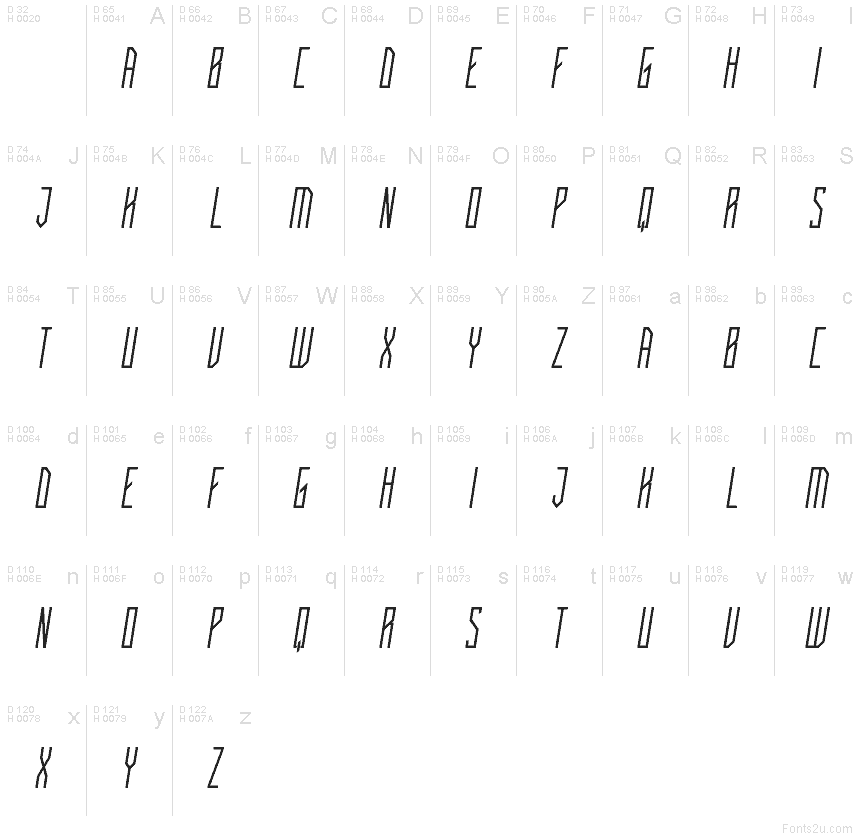
Aggressor Extravagant Thin font by Vladimir Nikolic is a free techno display typeface that looks like it’s racing off the screen. Its ultra-narrow, sharply slanted forms slice upward in jagged strokes, giving every word a sense of speed, tension, and controlled chaos. The thin lines keep it light and wiry, so even bold statements feel agile rather than bulky, like chrome lettering stretched across the side of a futuristic vehicle.
Using Aggressor Extravagant Thin, you can inject instant motion into esports branding, sci-fi posters, game titles, club flyers, streaming overlays, or edgy album covers. This free font works best in large sizes where its angular rhythm and tight spacing can really shout. For supporting text, pair it with a clean geometric sans in regular weight to balance the aggressive attitude with clear, grounded copy.